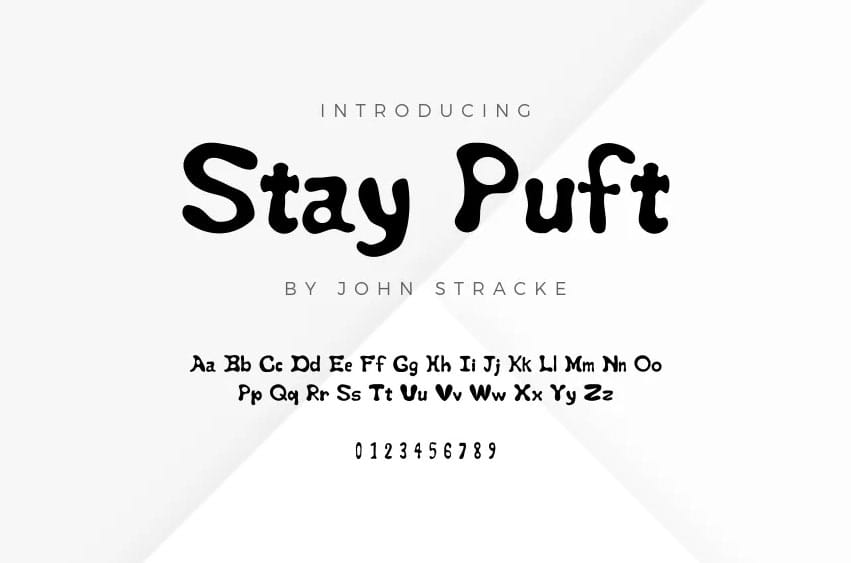
Stay Puft Font is a playful hand-drawn font created by John Stracke. The letters are rounded and appear slightly soft, similar to marshmallows. Although it has a light-hearted appearance, Stay Puft remains clear and easy to read, making it suitable for various projects. This font is especially effective for designs that need a light touch, such as greeting cards or invitations. Overall, Stay Puft is an appealing and enjoyable font that is likely to be well-received.